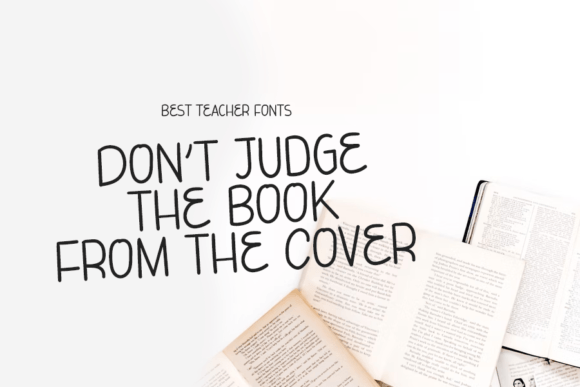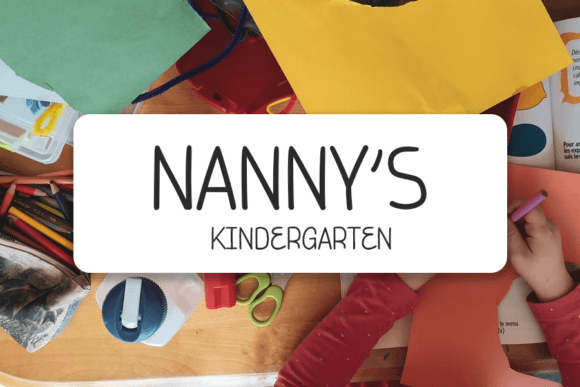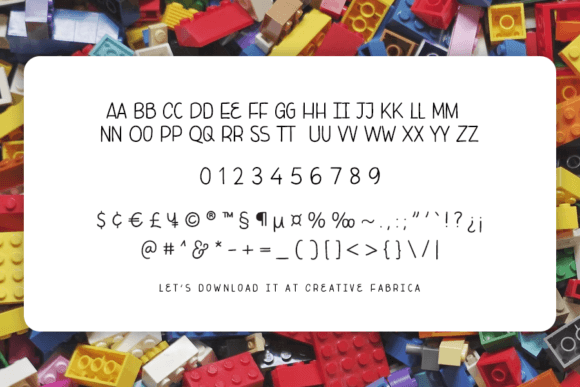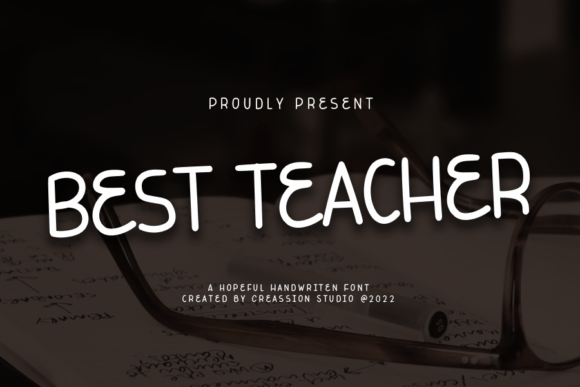
Discover the Best Teacher Font: Elevate Your Designs with a Fun and Friendly Handwritten Style
Are you a designer, teacher, or crafty individual looking for a font that adds a touch of warmth and personality to your projects? Look no further than the Best Teacher font! This delightful handwritten font is specifically designed to bring a beautiful and refreshing look to your designs, making it perfect for a wide range of applications.
What Makes Best Teacher Font So Special?
The Best Teacher font is a carefully crafted typeface that boasts a unique blend of playfulness and sophistication. Its fun and friendly vibe makes it an excellent choice for designs that require a personal touch, such as:
- Educational materials and worksheets
- DIY projects and crafts
- Party invitations and decorations
Key Features of Best Teacher Font
So, what sets the Best Teacher font apart from other handwritten fonts? Here are some of its key features:
- Unique and quirky lettering style: The Best Teacher font features a one-of-a-kind handwritten style that’s both fun and engaging.
- Easy to read: Despite its playful nature, the font remains clear and legible, making it perfect for body text and headings.
- Highly versatile: Use it for digital or print projects, from educational resources to party decorations.
How to Use Best Teacher Font in Your Designs
Ready to incorporate the Best Teacher font into your projects? Here are some tips to get you started:
- Pair it with complementary fonts: Combine the Best Teacher font with other fonts to create a visually appealing contrast.
- Experiment with colors and textures: Add depth and interest to your designs by playing with different colors and textures.
- Use it for headings and titles: The Best Teacher font is perfect for grabbing attention and adding a personal touch to your headings and titles.
Tips for Teachers and Educators
As a teacher or educator, you’re likely always on the lookout for ways to make learning more engaging and fun. Here are some ideas for using the Best Teacher font in your educational materials:
- Create eye-catching worksheets: Use the Best Teacher font to add a playful touch to your worksheets and make them more appealing to students.
- Design engaging lesson plans: Incorporate the font into your lesson plans to make them more visually appealing and easy to follow.
- Make learning fun with activity sheets: Create activity sheets, such as word searches, crosswords, and quizzes, using the Best Teacher font.
| Font Name | Best Teacher Font |
| Author | Creassion Studio |
In conclusion, the Best Teacher font is a fantastic addition to any designer’s toolkit. Its unique blend of playfulness and sophistication makes it perfect for a wide range of applications, from educational materials to party decorations. With its ease of use, versatility, and compatibility with various design software, this font is sure to become a favorite among designers, teachers, and crafty individuals alike.